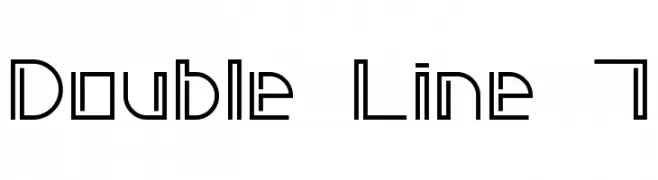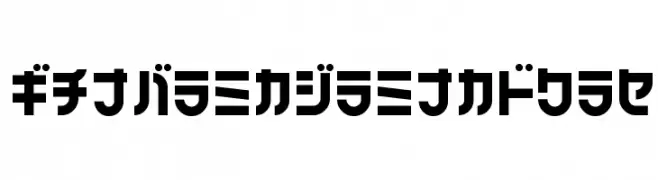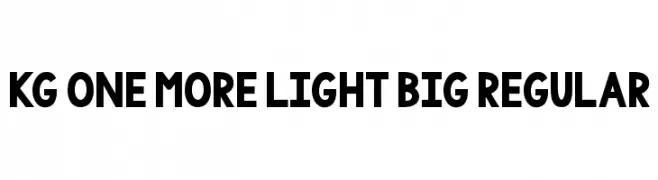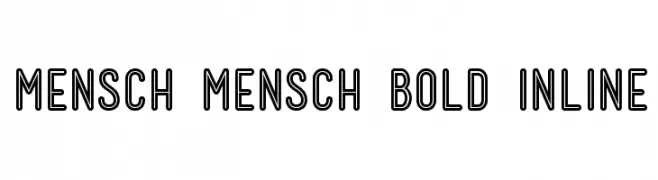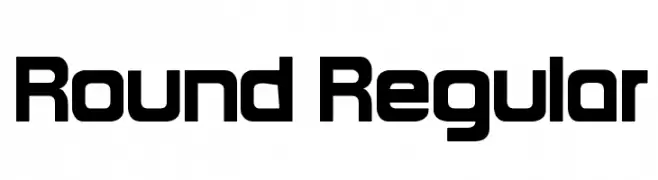
A bold, rounded font with a playful and modern style.
A modern, double-line font with a geometric and futuristic style.
A modern, minimalistic icon set with bold lines and uniform spacing.
A modern, monospaced font with clean lines and uniform spacing.
A decorative font inspired by astrology and celestial themes, featuring bold, high-contrast characters.
A bold, geometric font with a modern, industrial aesthetic.
A sleek, geometric font with thin lines and a modern, minimalist style.
A bold, inline font with a modern yet retro style, ideal for impactful designs.
A bold, geometric font with rounded edges and a modern feel.